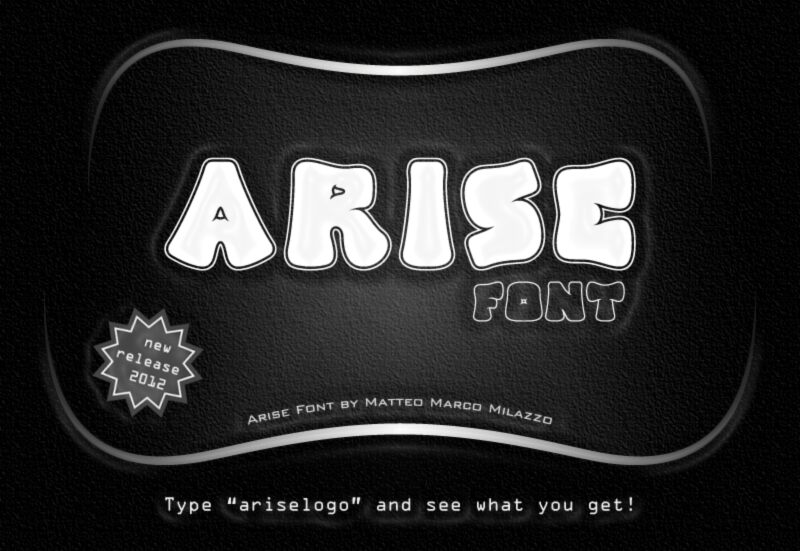
Arise by Matteo Marco Milazzo is a free cartoon display font with swollen, soft-edged capitals, uneven heights, and a loose hand-shaped silhouette that makes the alphabet feel cheerfully off-kilter. Its broad letters buckle and pinch in unexpected places, with wavering outer edges and tiny pointed openings that cut sharp flashes into otherwise dense forms.
The lettering's unmistakable psychedelic streak belongs on music posters and festival merchandise, but it also gives playful snack packaging and children's entertainment graphics a strange rubbery mascot quality rooted in the warped graphics of late-1960s counterculture rather than clean comic-book conventions. It is strongest as a record-cover title.